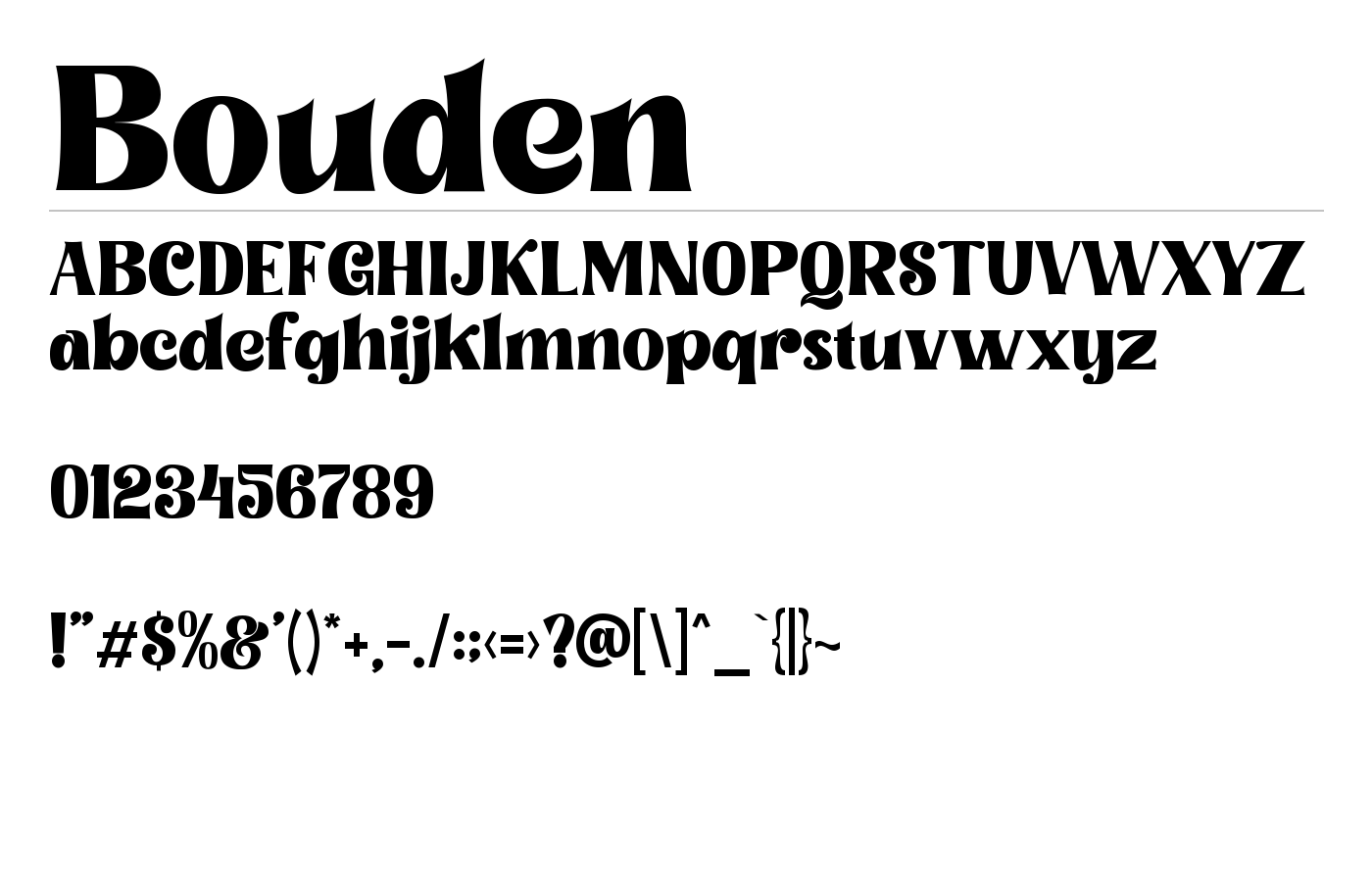
Bouden is a bold serif font with a playful yet sophisticated character, featuring thick, slightly curved serifs and a moderate contrast between thick and thin strokes. Its unique letterforms, like the curved tails and distinct ampersand, give it a quirky charm that works well for eye-catching headlines, logos, and creative branding. This font adds personality and flair while maintaining readability, making it ideal for projects needing a stylish, confident look.
Bouden Font
About Bouden Font
| Font family | Bouden Font |
| Designer | Nur Solikh |